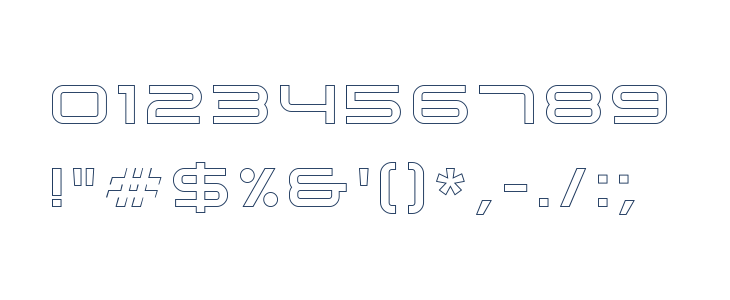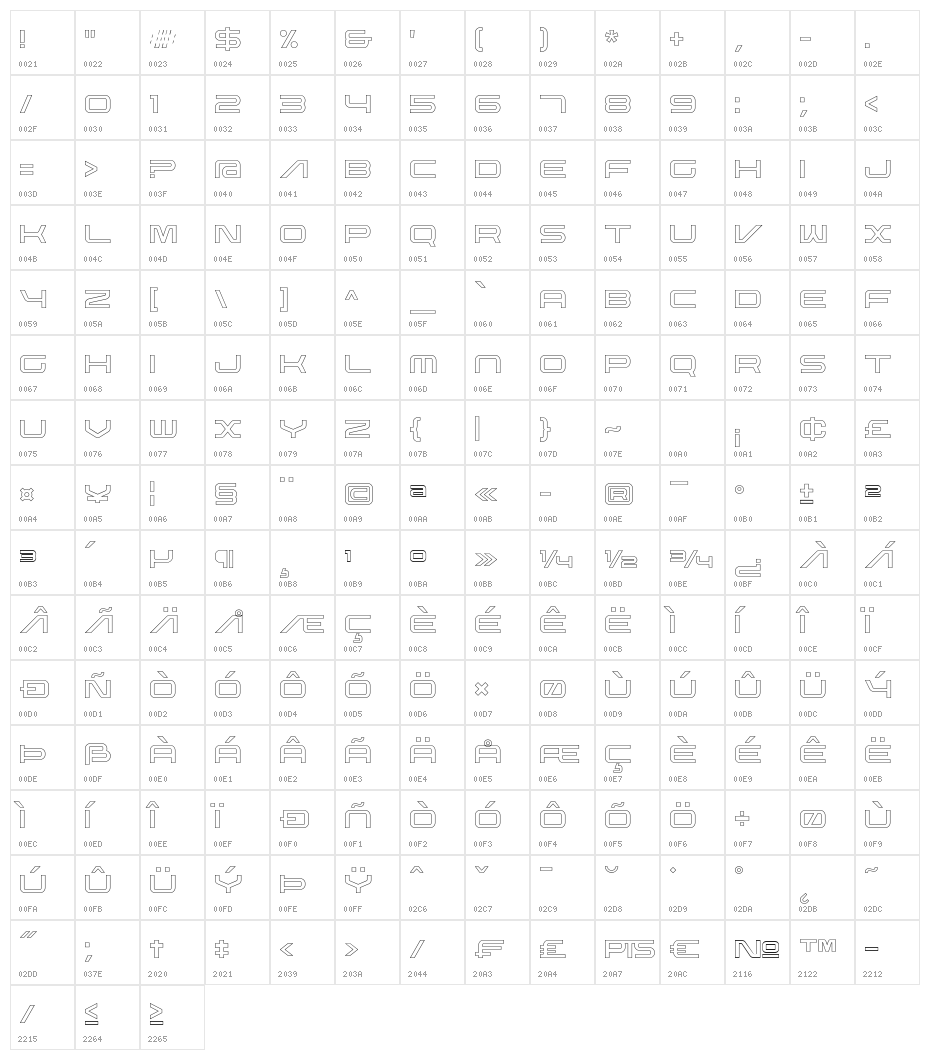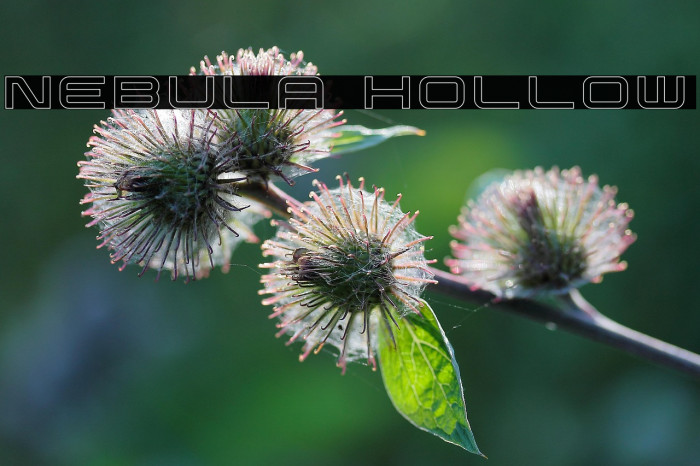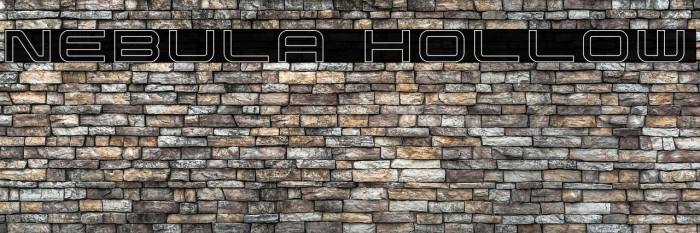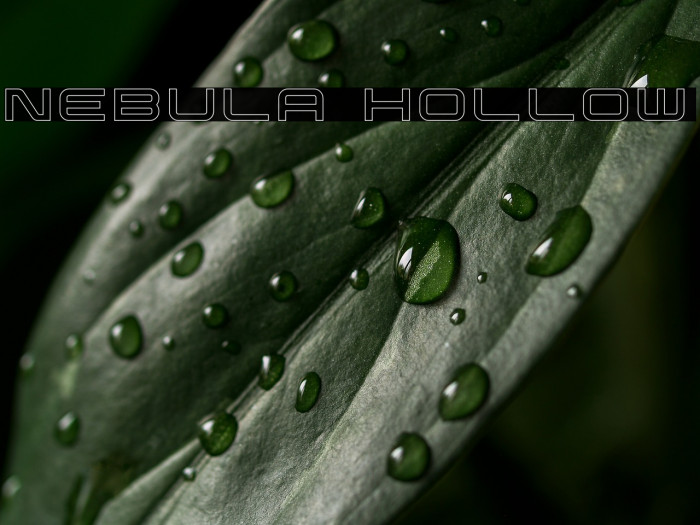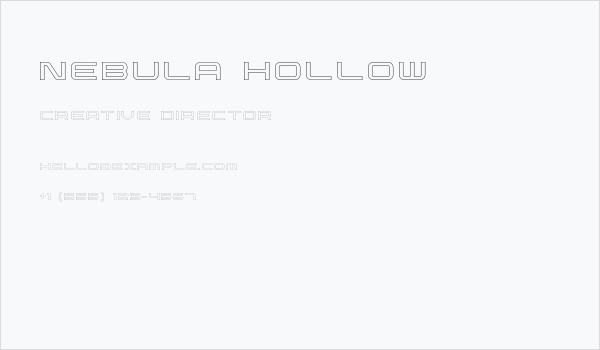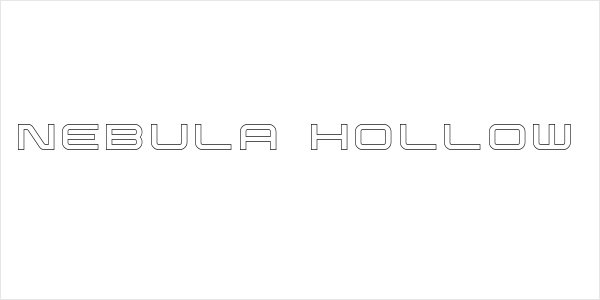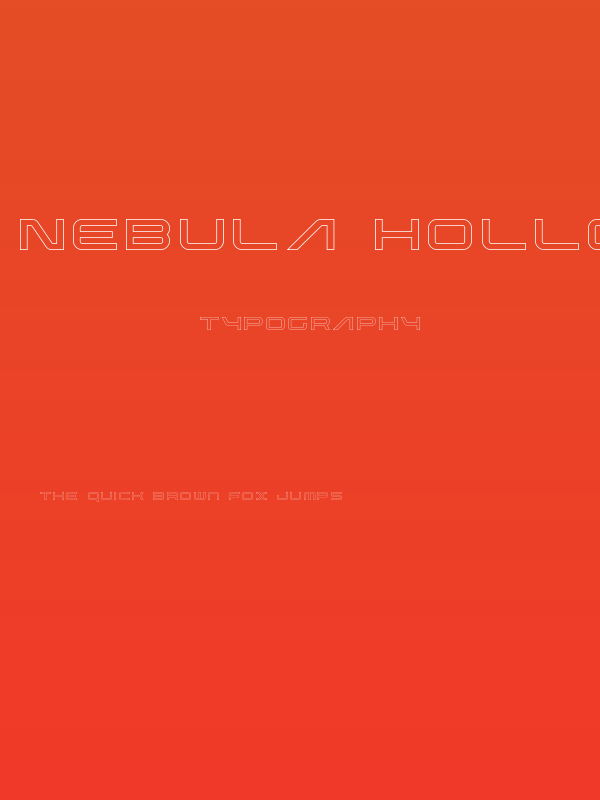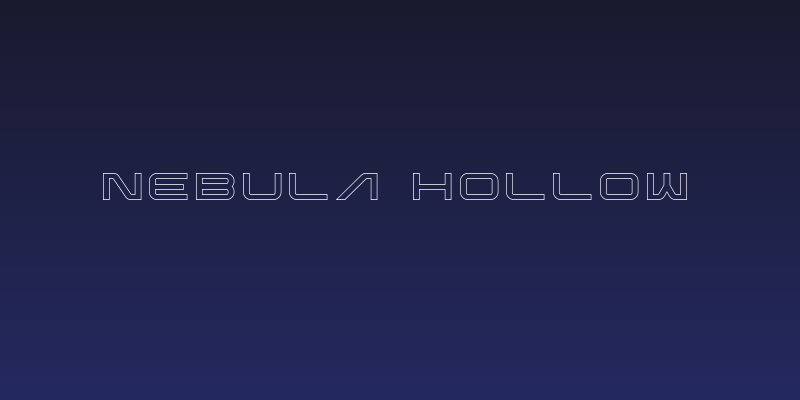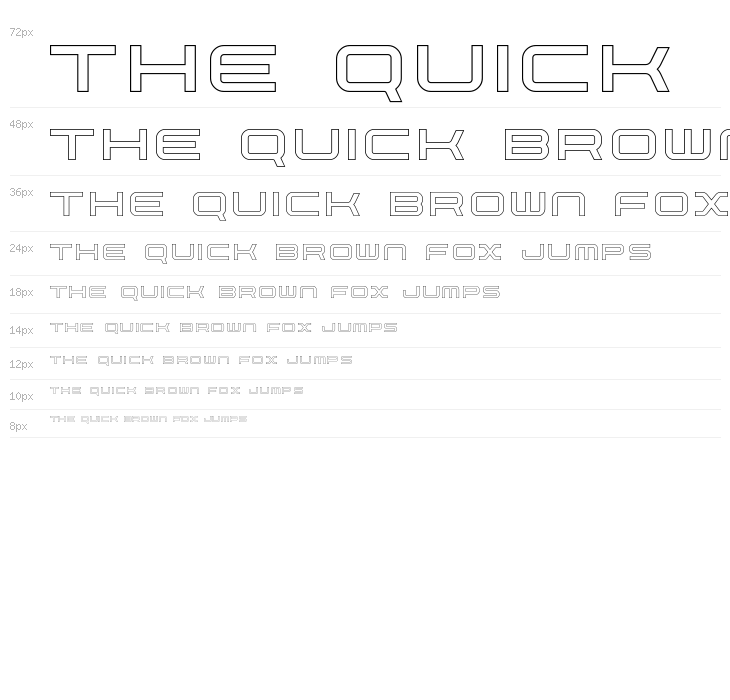
Nebula Hollow Font
Nebula Hollow Description
This font features a futuristic and geometric design with hollow characters, giving it a distinct and modern appearance. The uppercase and lowercase letters are consistent in style, with sharp angles and clean lines that create a sense of precision and clarity. The numerals and special characters maintain this aesthetic, ensuring a cohesive look across all text elements. The hollow nature of the font adds a unique dimension, making it stand out in digital and print media. Its design is both minimalistic and bold, making it suitable for projects that require a modern and tech-savvy feel.
| Use Case | Headlines, Logos, Digital interfaces |
| Proposed Projects | Ideal for technology branding, sci-fi themed projects, digital interfaces, and modern advertising. |